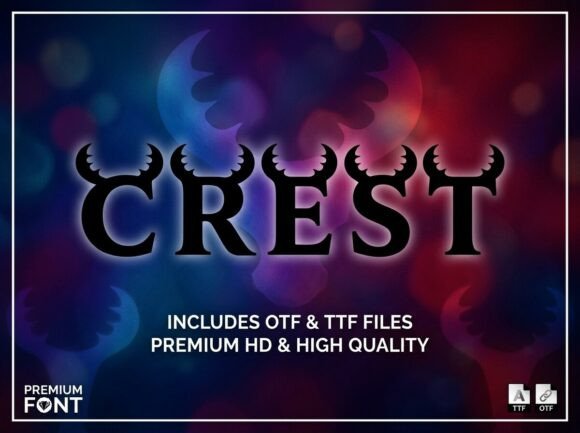
Introduction to Crest Font
Summon a powerful visual presence with Crest, a high-contrast serif font designed with a sharp, demonic edge.
This majestic typeface features elegant, flared serifs where each cap is crowned with aggressive, recurved horns The blend of traditional structural grace and sinister architectural details creates a silhouette that is both regal and intimidating.
Key Features of Crest Font